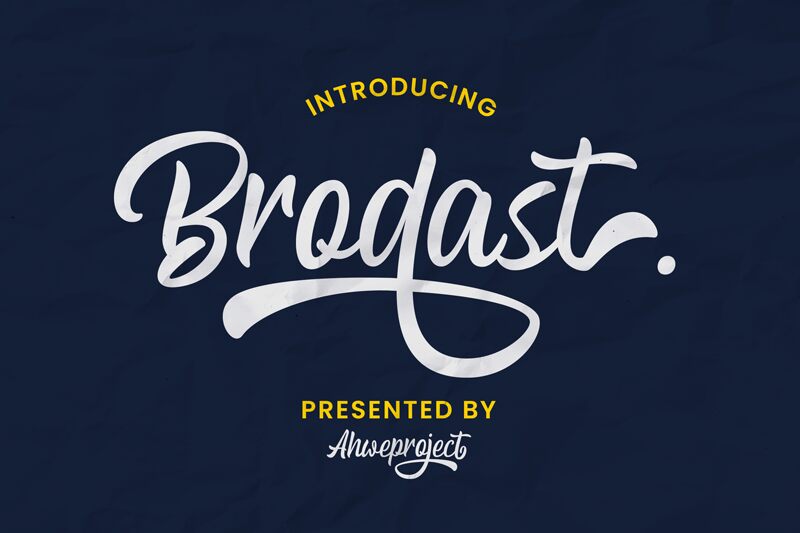
Brodast-Regular
Brodast, the semi-light handwritten font designed by Ahwe Project, is the perfect typeface for any project that requires a touch of personality and creativity. Its marker style adds a playful and casual feel to any design, making it suitable for everything from greeting cards to social media posts. With its unique hand-drawn look, Brodast is also great for branding projects that want to stand out from the crowd. Whether you're looking to create a logo or a website, this charming font will add just the right amount of whimsy and flair to your design.